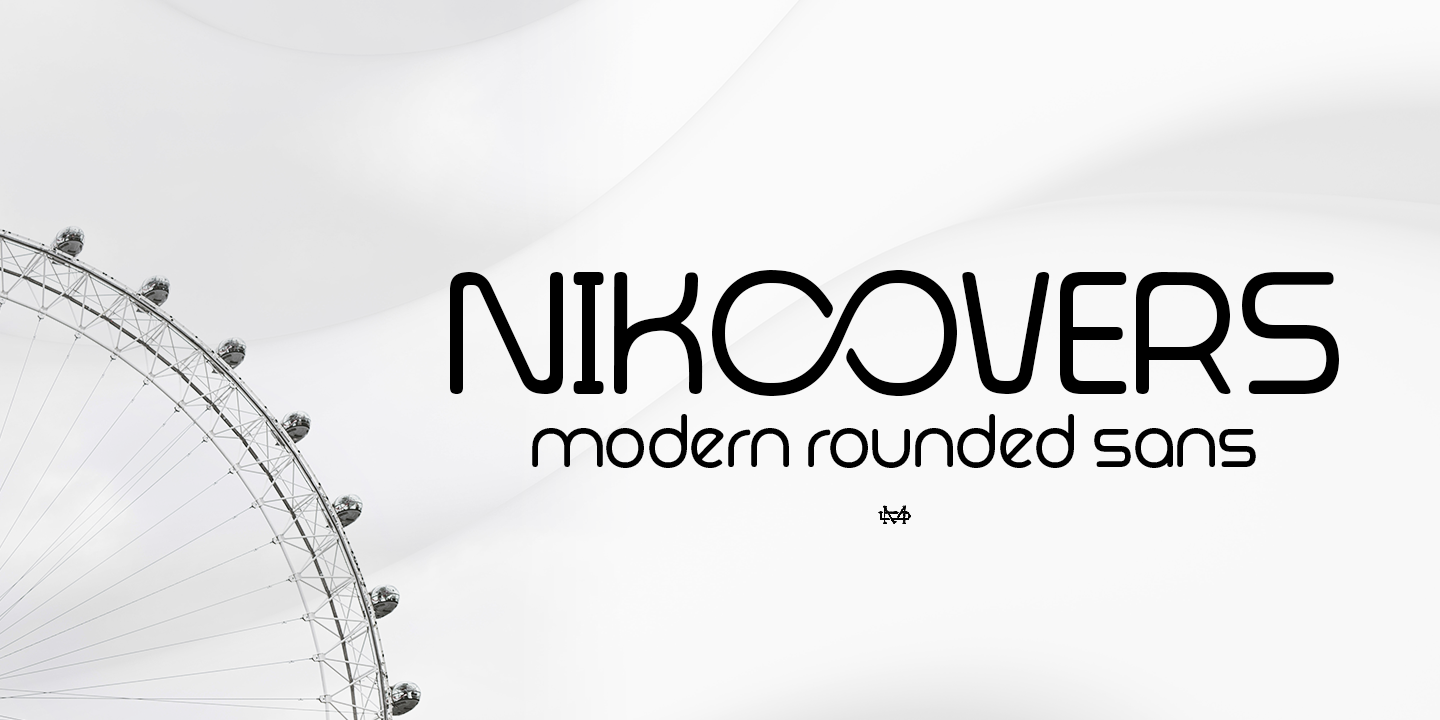
Nikoovers
Designed by Suandana Ipandemade, Nikoovers is a retro and sans serif font family published by madeDeduk.
Nikoovers Font is a modern rounded sans that exudes simplicity and versatility. Its clean and geometric letterforms make it ideal for various design applications, from corporate branding to editorial layouts.
- Alternative
- ligature